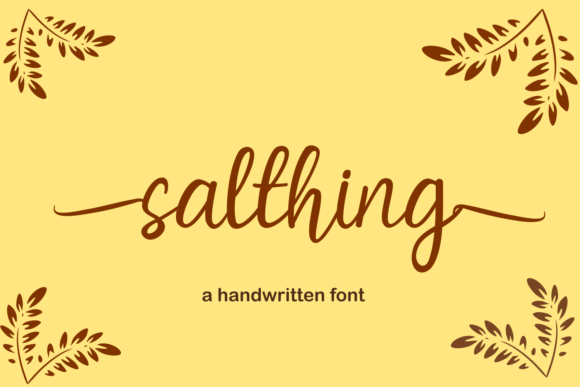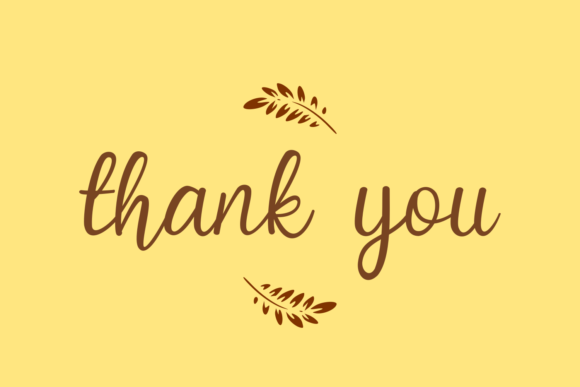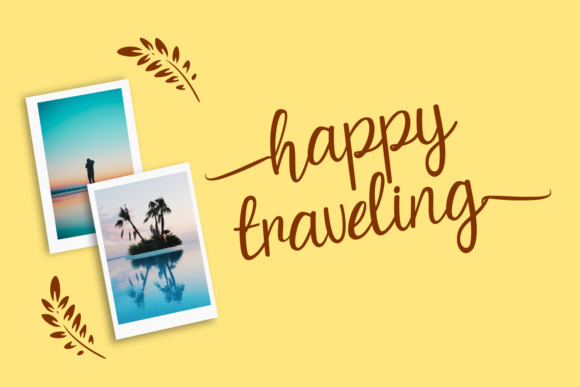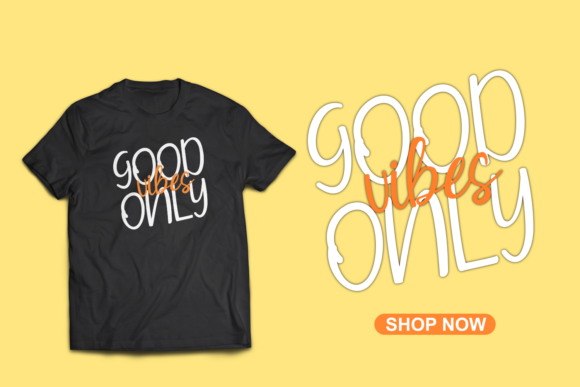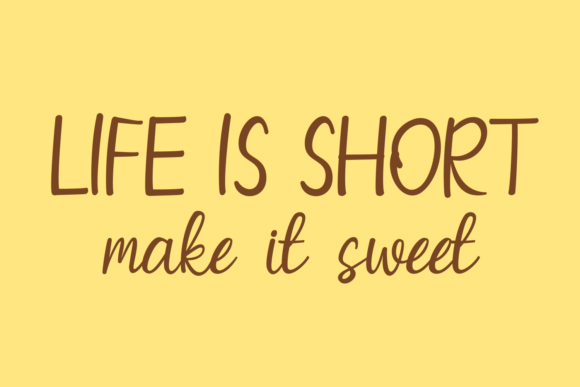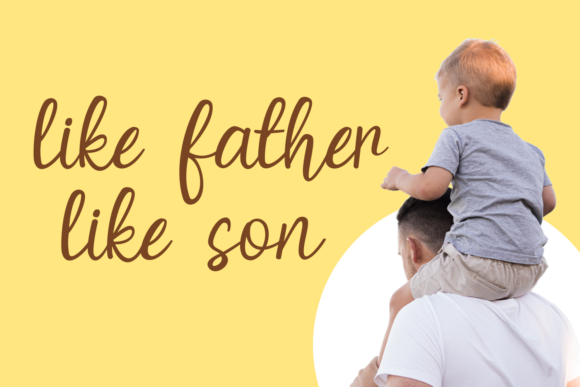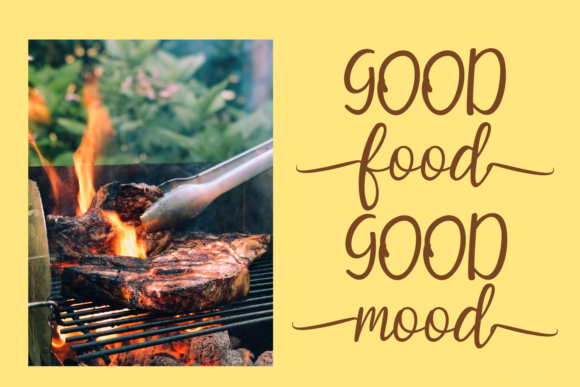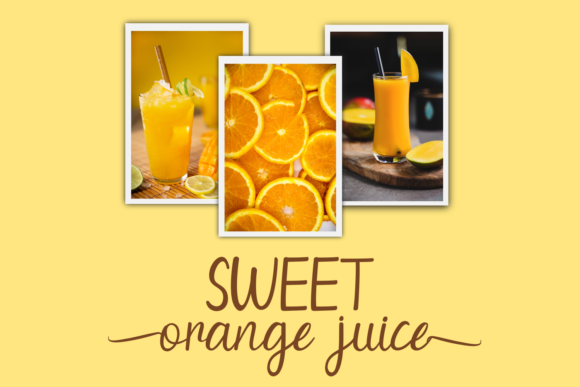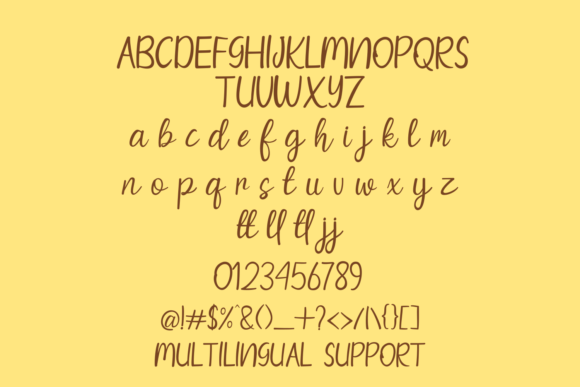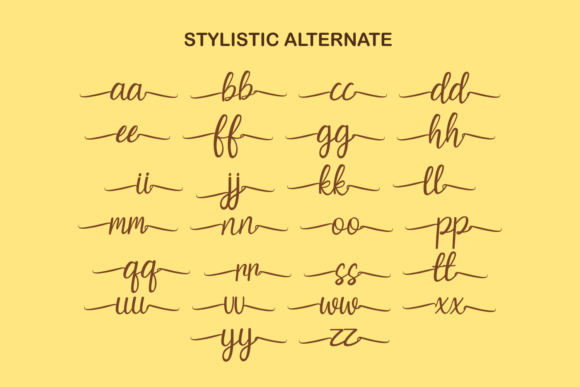
Salthing Font
About Salthing Font
Salthing feels equally charming and elegant. This stunning script font is a stylish homage to classic calligraphy. It features a varying baseline, smooth lines, gorgeous glyphs and stunning alternates.